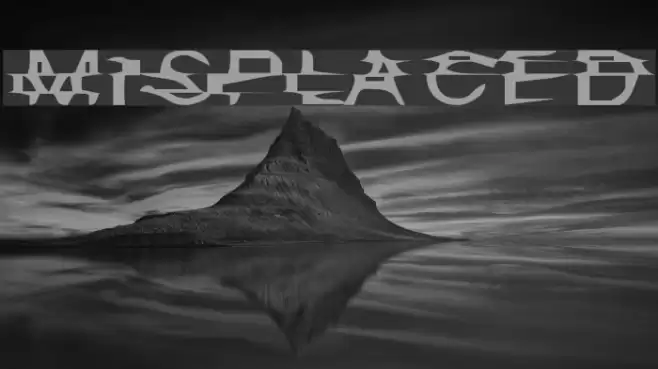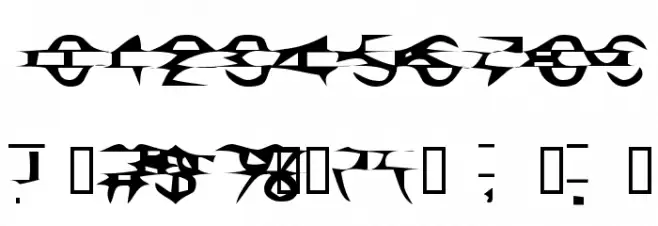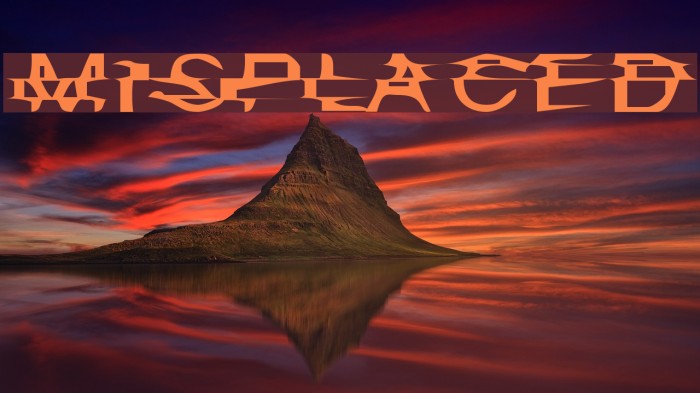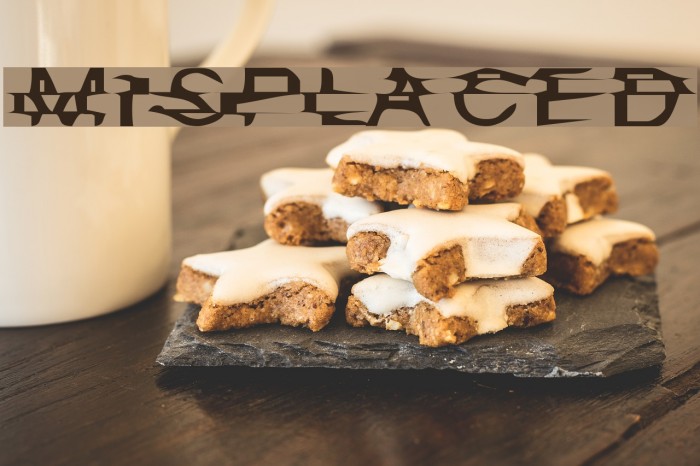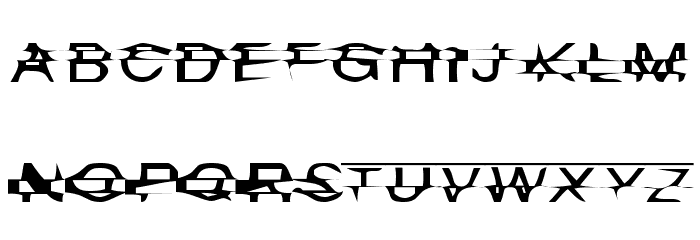
Misplaced Font
Misplaced Description
This font features a highly distorted and fragmented style, with characters appearing as if they are shattered or glitching. The design incorporates sharp, angular cuts and overlapping segments, creating a chaotic and dynamic visual effect. Each letter and number is split into multiple parts, with some sections misaligned or displaced, contributing to a sense of disarray. The font's unique appearance makes it stand out, but it may pose readability challenges for longer texts. Its unconventional style is ideal for projects that aim to convey a sense of disruption or modern digital aesthetics.
A fragmented, glitch-style font with sharp, angular cuts and overlapping segments from Broken fonts.
- Proposed Projects: Ideal for digital art, album covers, posters, and projects that embrace a modern, edgy aesthetic.
- Overall Style: Modern, Edgy, Disruptive
- Use Case: Logos, Headlines, Artistic Projects